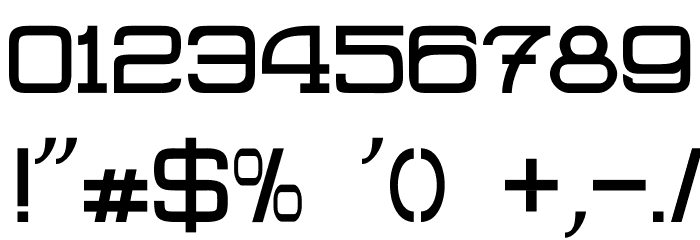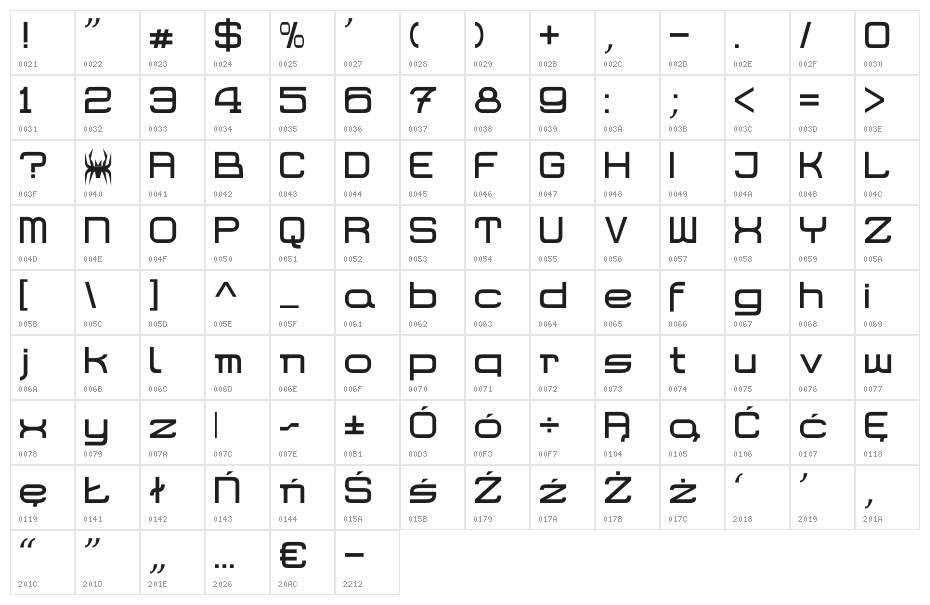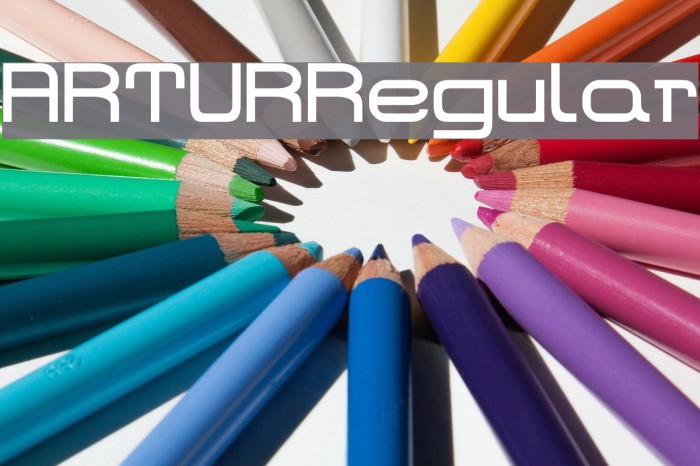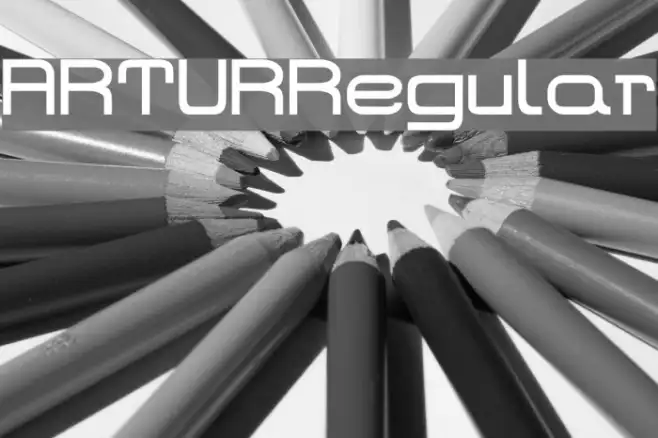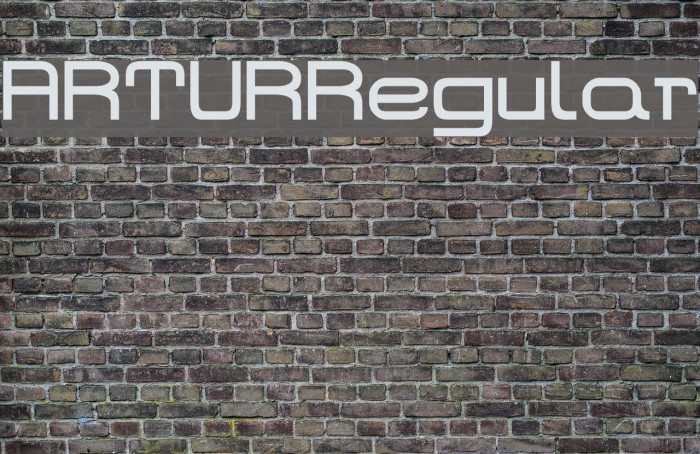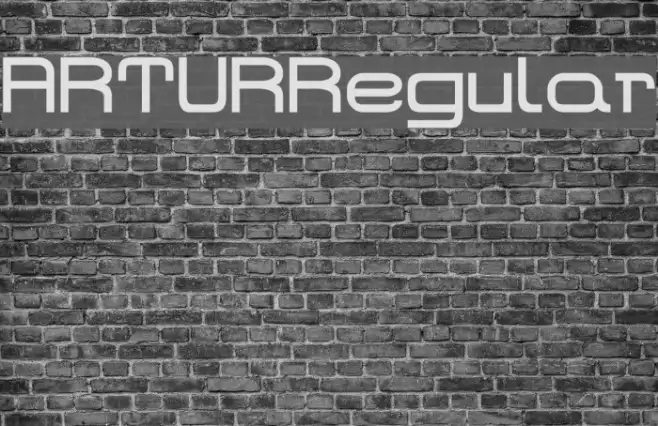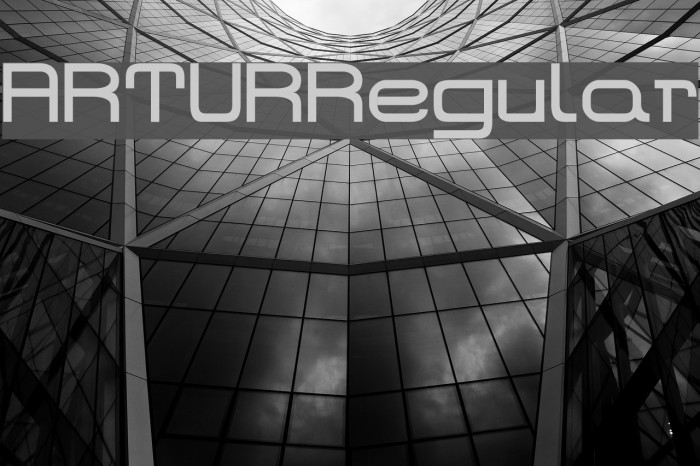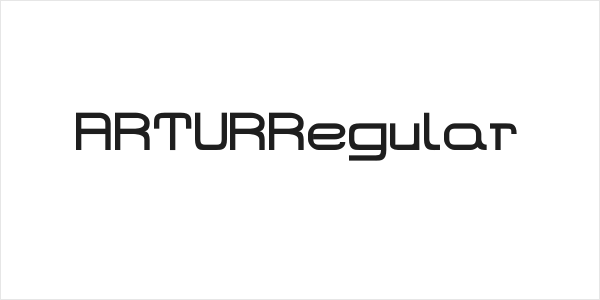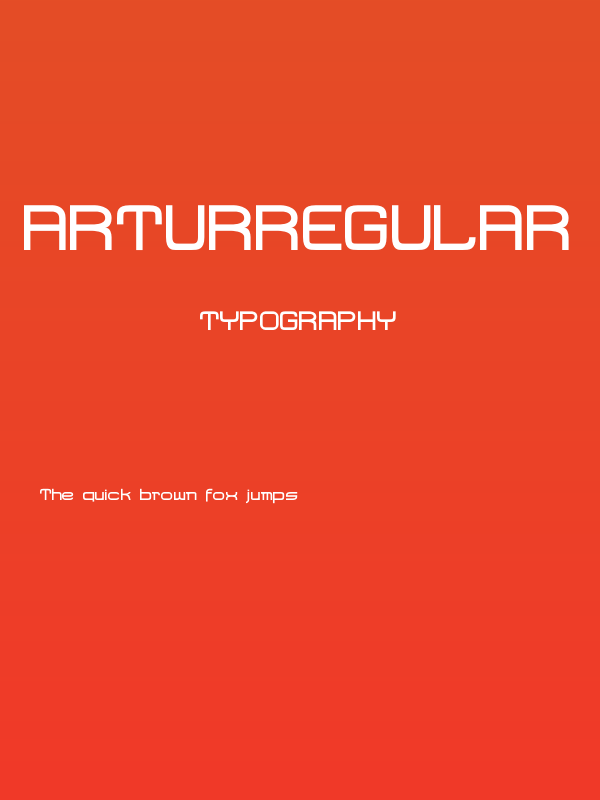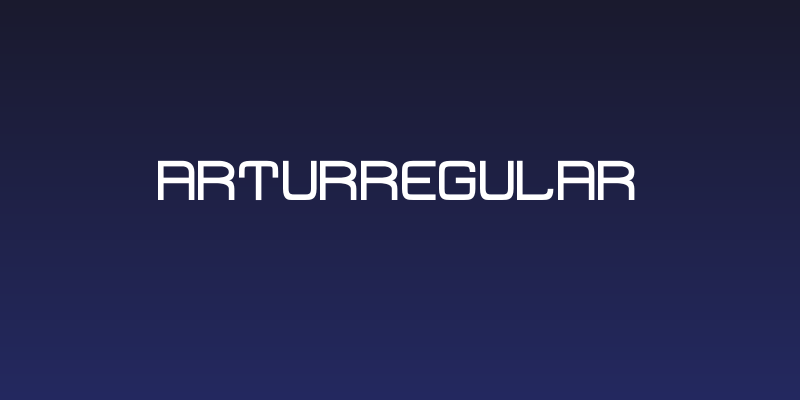
ARTURRegular Font
ARTURRegular Description
This font features a modern, geometric design with a distinct futuristic flair. The characters are constructed with clean, straight lines and rounded corners, giving it a sleek and contemporary appearance. The uppercase letters are bold and assertive, while the lowercase letters maintain a consistent style with slightly softer edges. Numbers and special characters follow the same design principles, ensuring uniformity across all glyphs. The font's unique style makes it stand out, yet it remains highly legible, making it suitable for various applications.
| Use Case | Headlines, Logos, Digital Interfaces |
| Proposed Projects | Ideal for technology branding, sci-fi themed projects, modern advertising, and digital interfaces. |